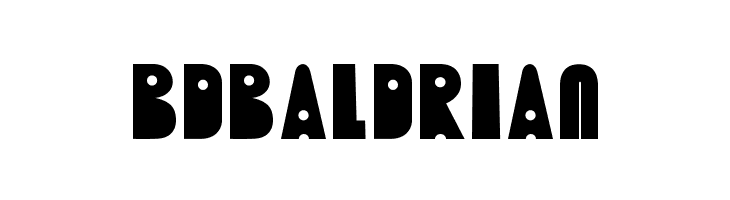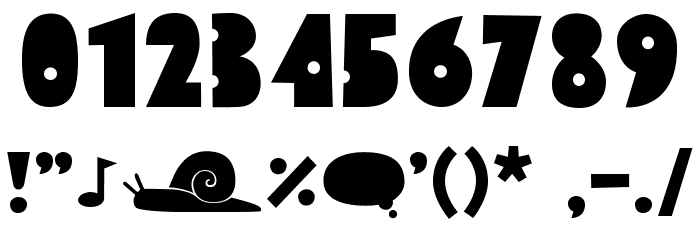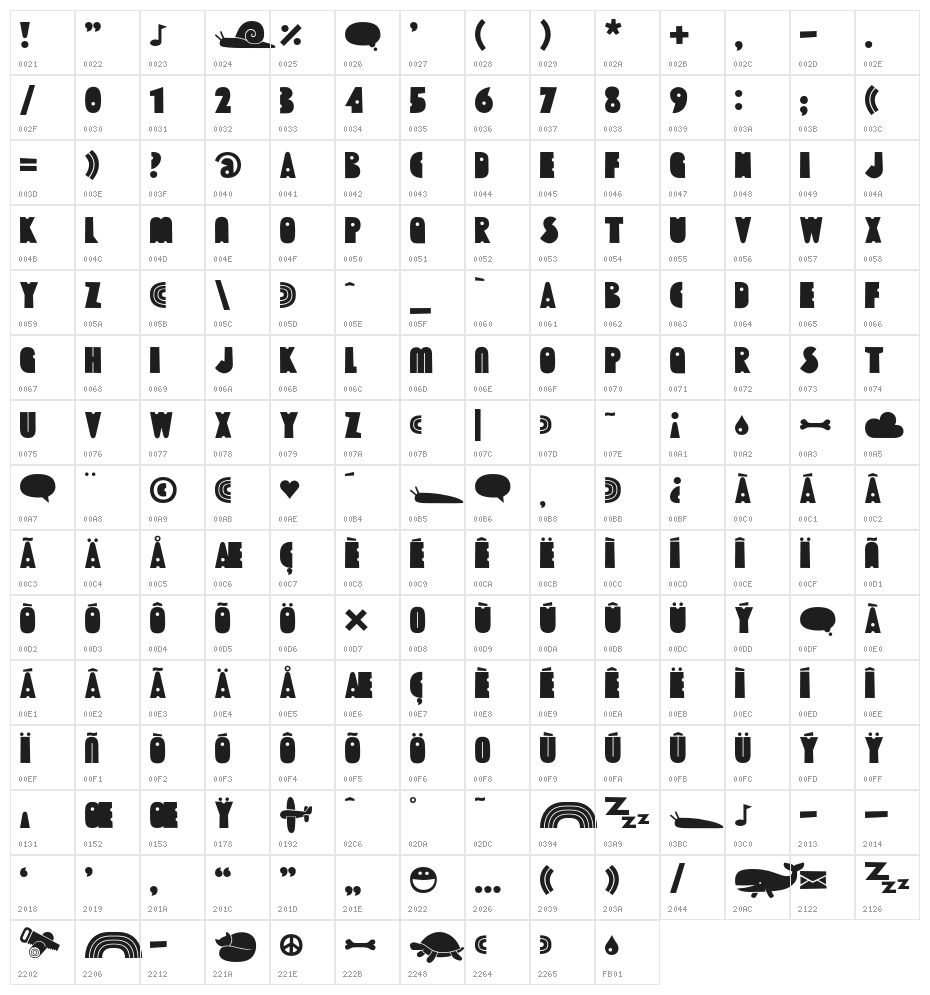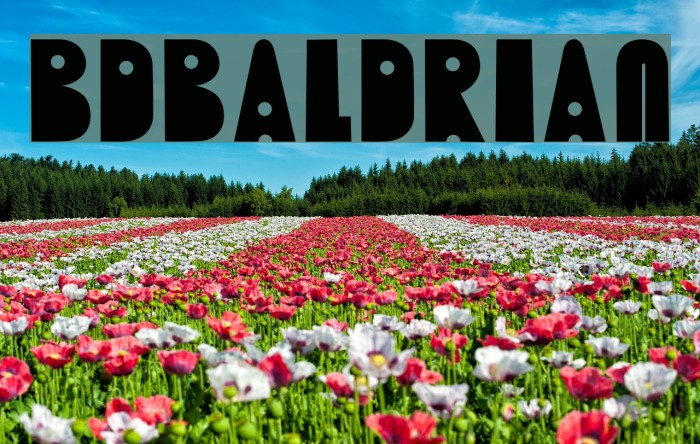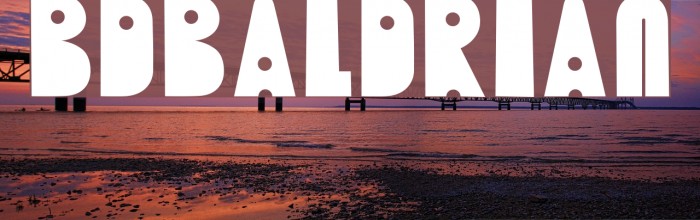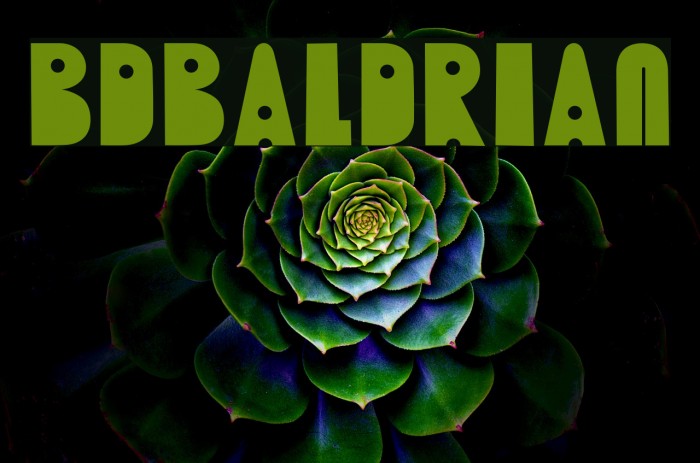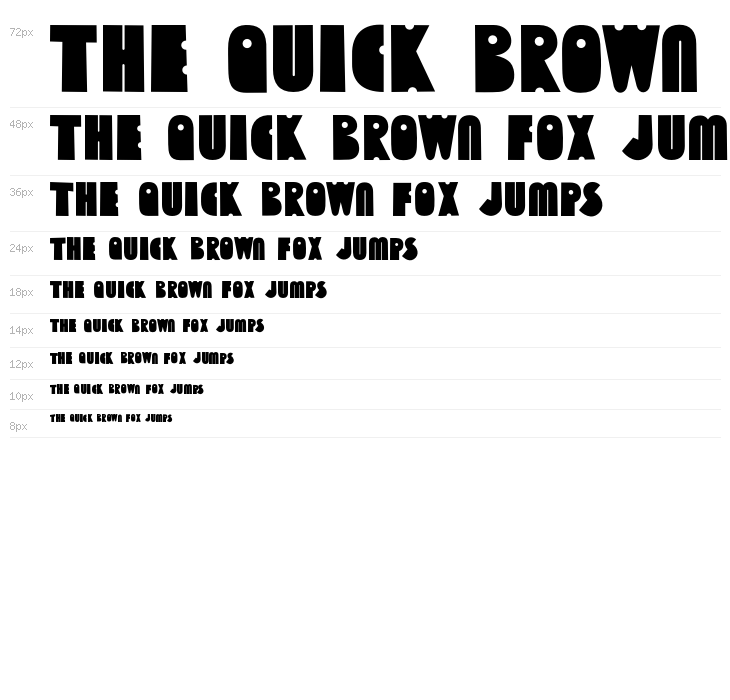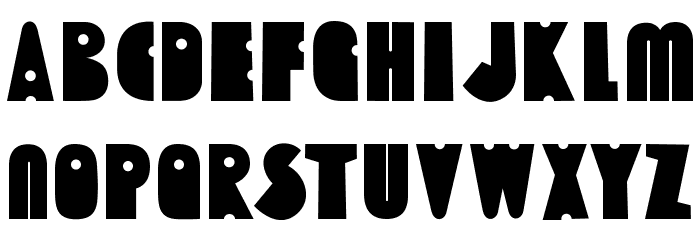
BDBaldrian Font
BDBaldrian Description
This font features a bold and playful design with a unique, chunky appearance. The characters are heavily stylized with rounded edges and a whimsical, almost cartoonish quality. Each letter is distinct, with some incorporating playful cutouts or exaggerated forms that add to its decorative nature. The numerals and special characters follow the same playful theme, making the font suitable for creative and informal applications. The overall style is eye-catching and designed to stand out, making it ideal for projects that require a fun and engaging visual element.
| Proposed Projects | Ideal for children's books, playful branding, posters, and party invitations. |